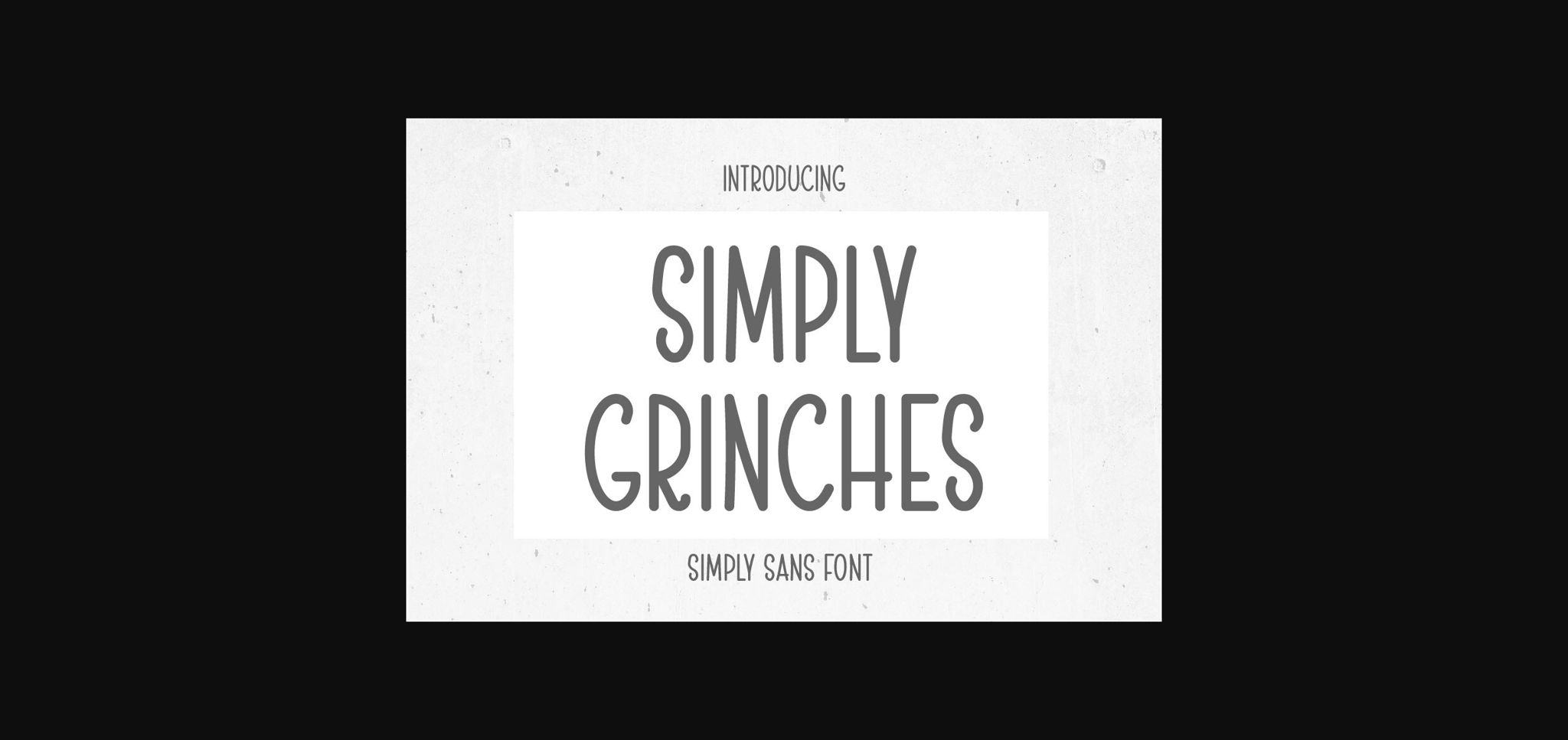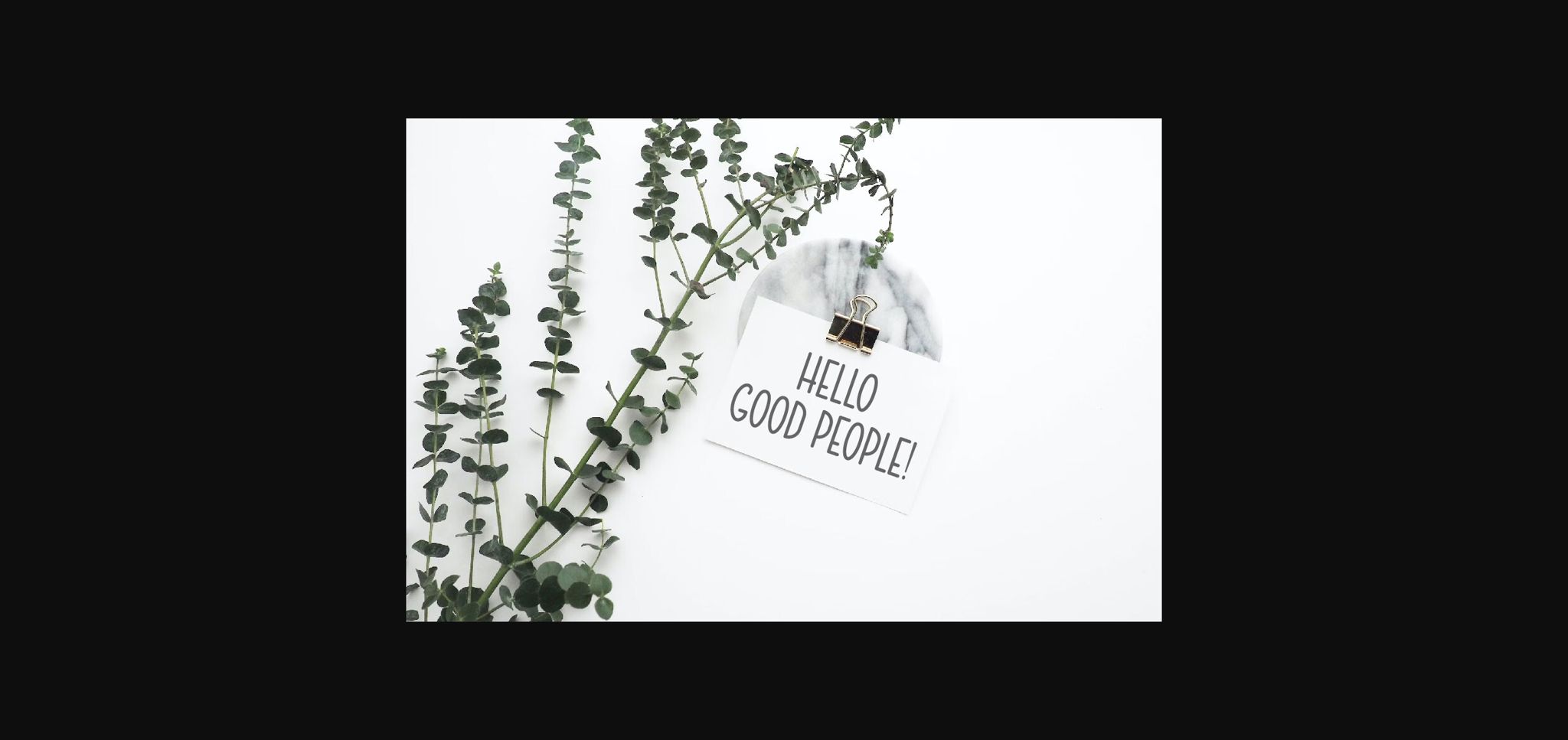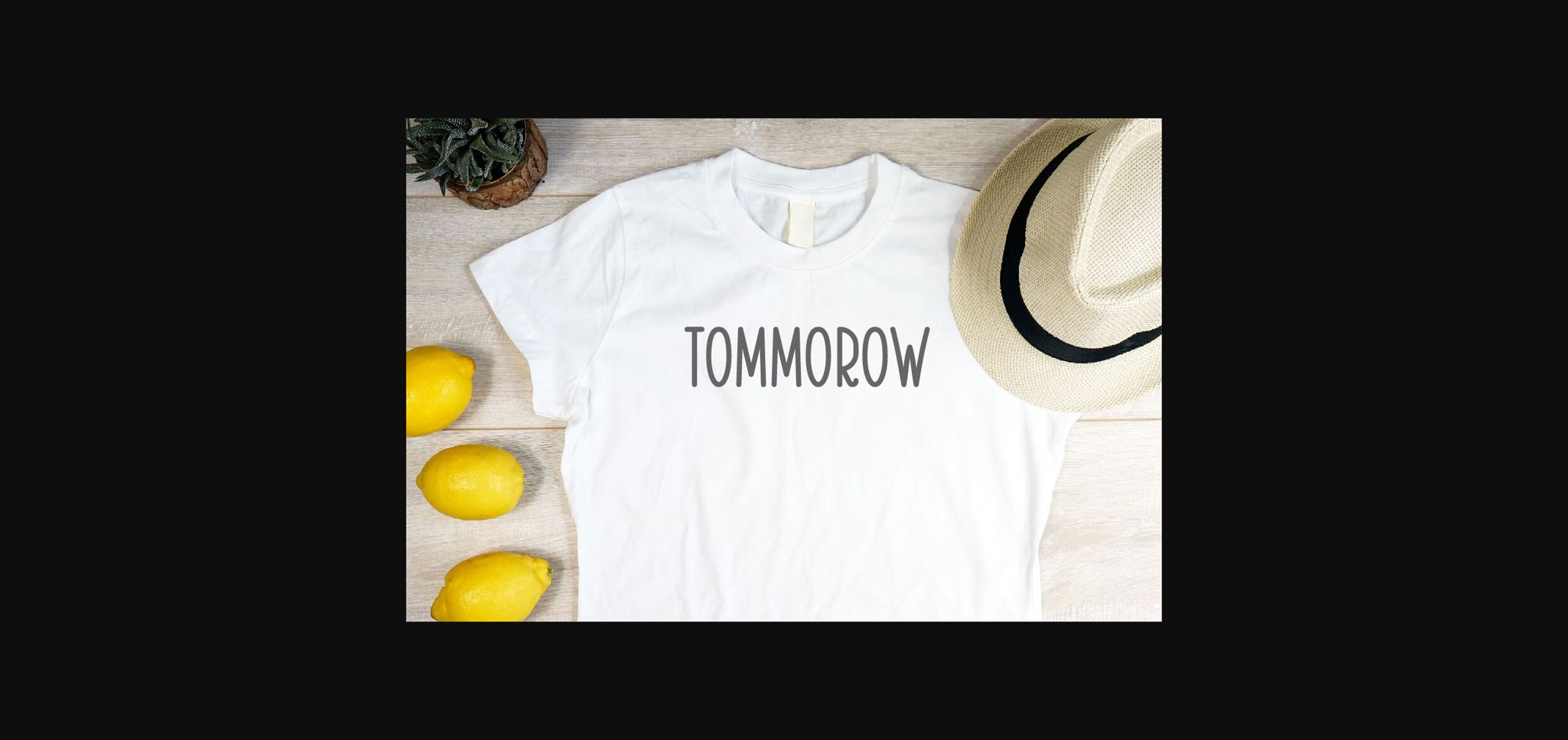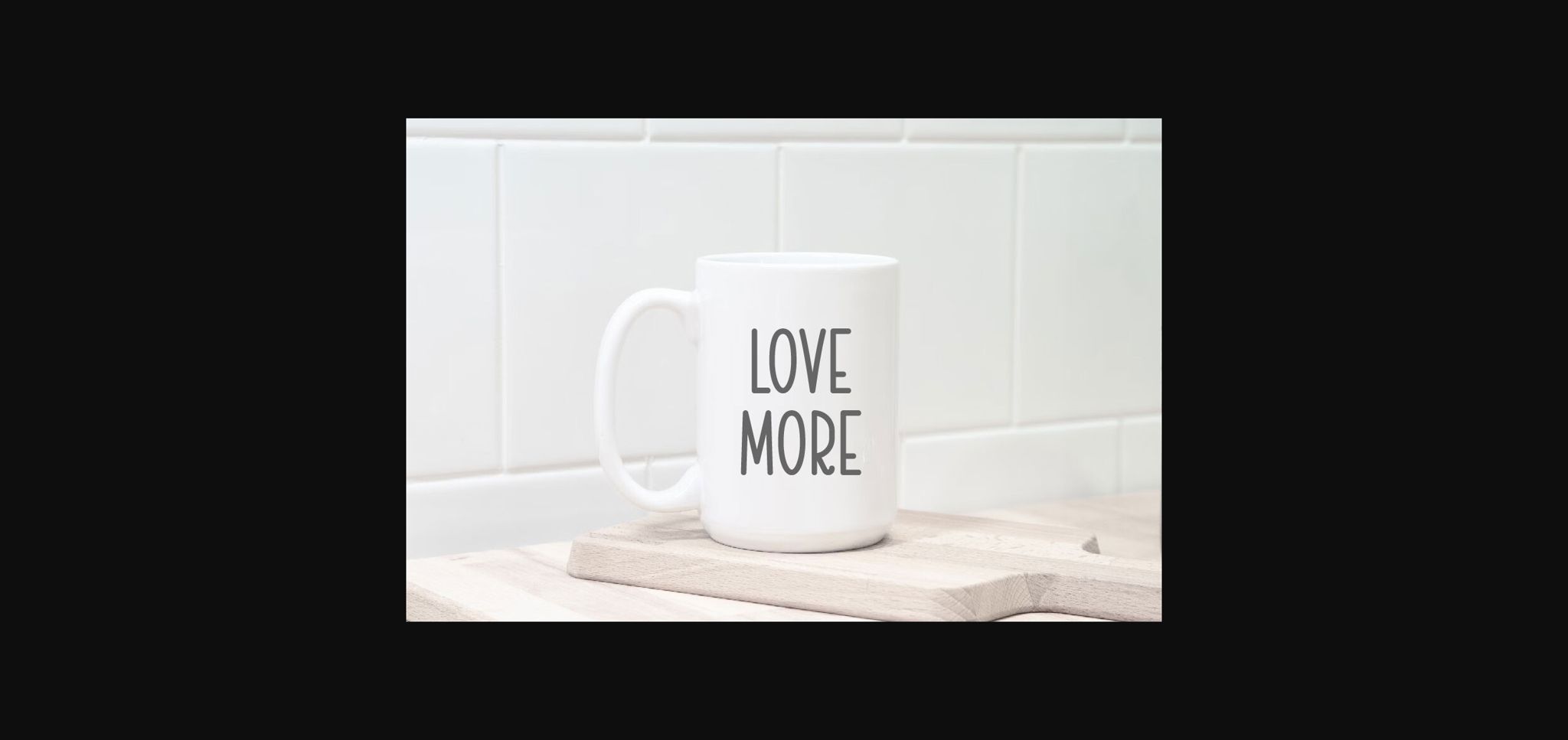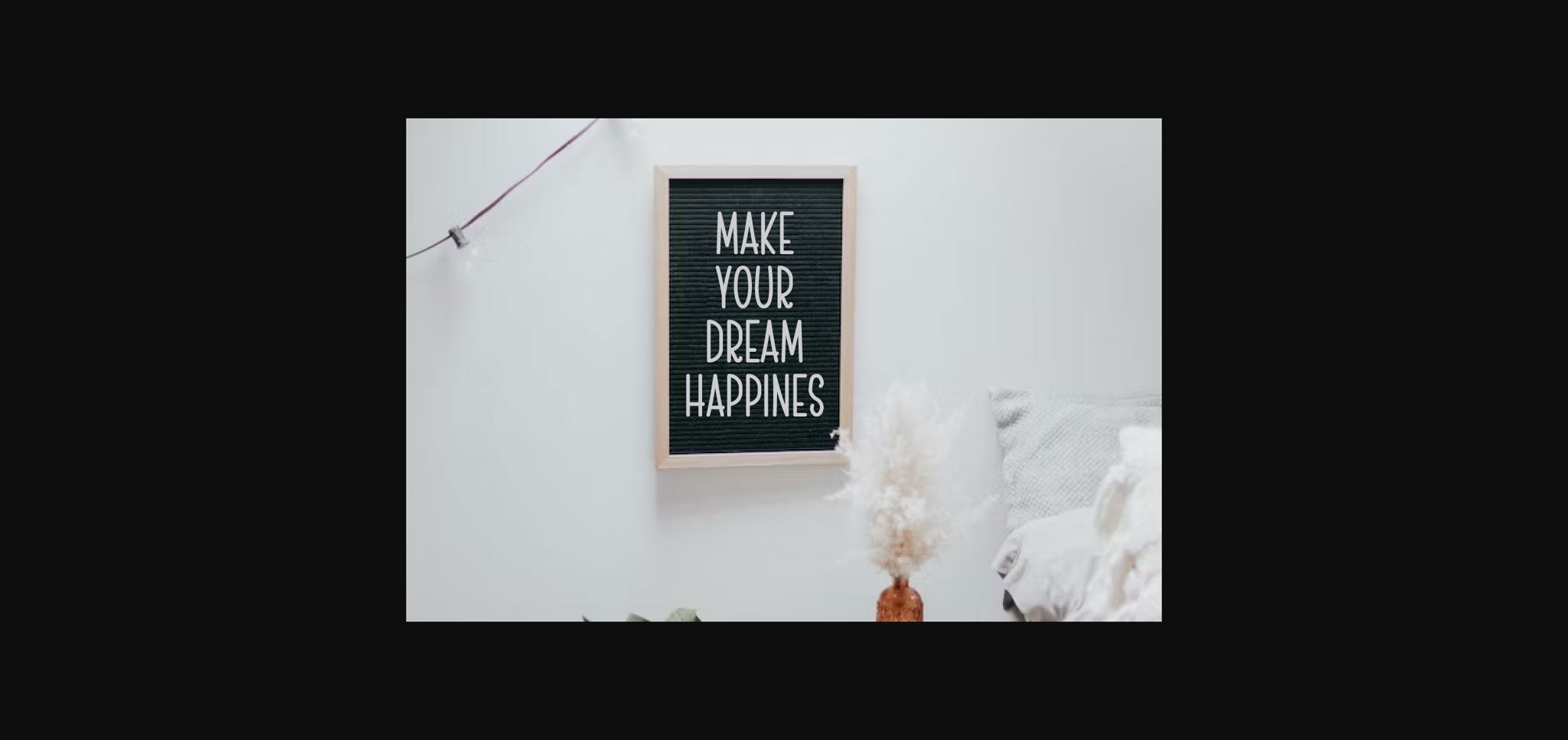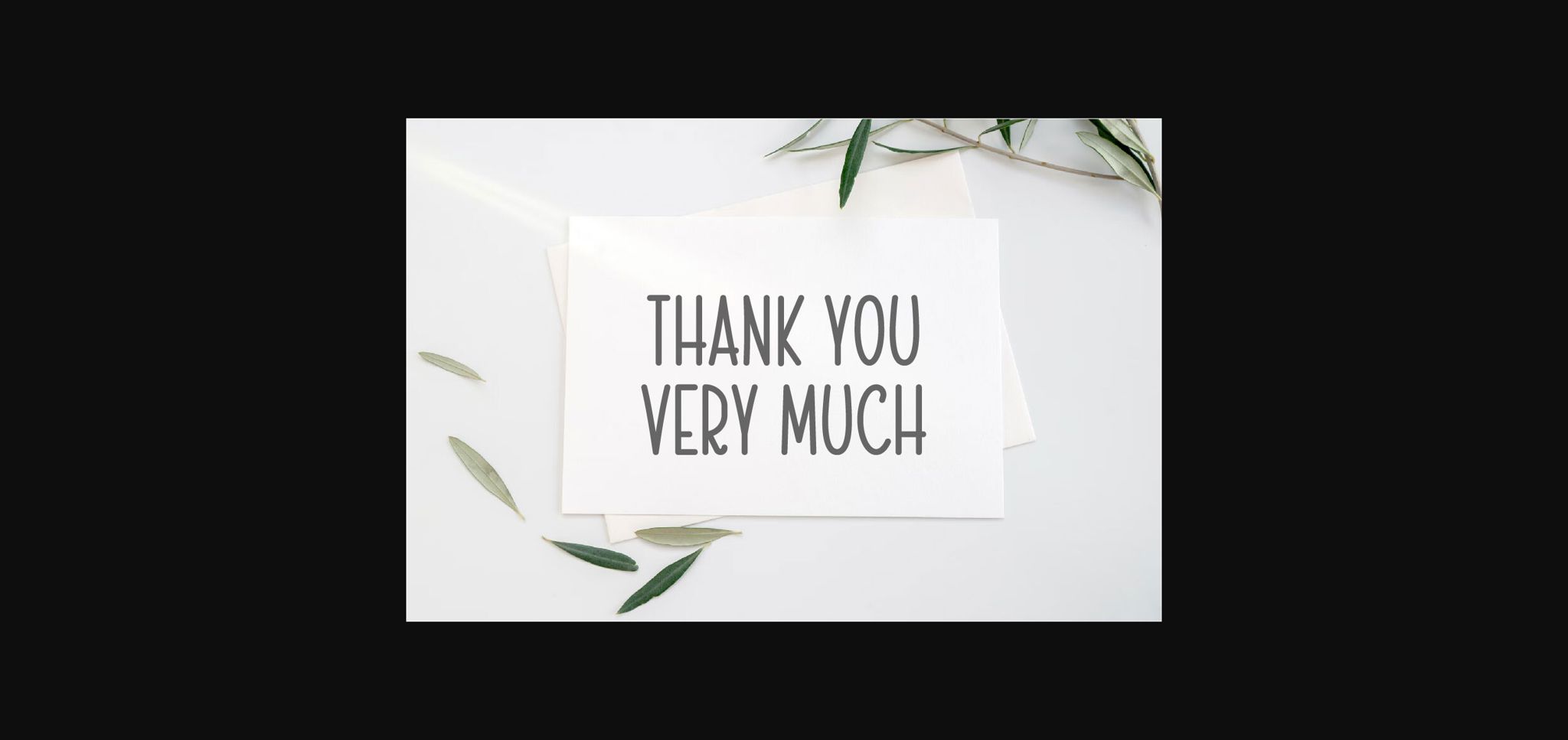
Simply Grinches Font
Simple Grinches is a simple sans serif font, this font is perfect for greeting cards, weddings, gift labels, mugs, t-shirts, quotes, labels, etc. Use it to create spectacular and interesting designs!